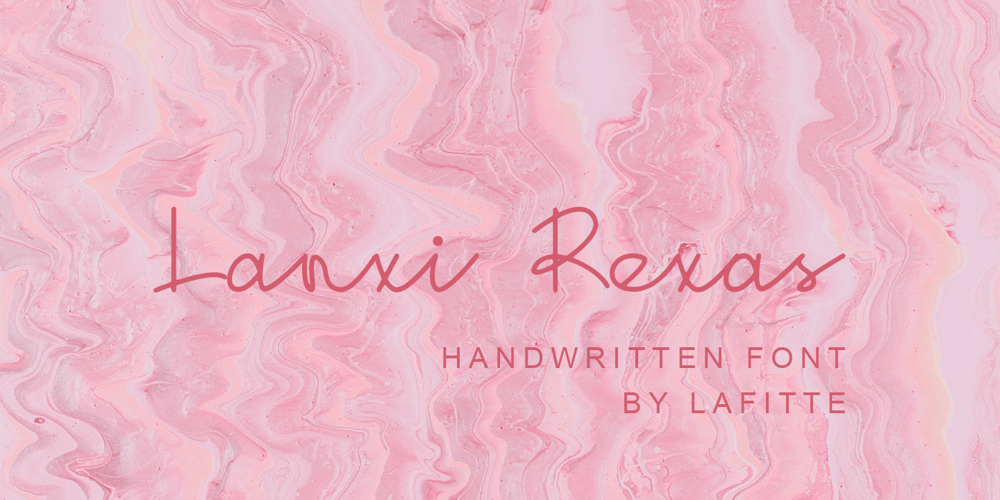
Lanxi Rexas Font Family was designed by Afif Hidayat Alhabsi and published by Lafitte 58. Lanxi Rexas contains 1 styles and family package options. Lanxi Rexas is a modern and dainty handwritten font. Its natural and unique style makes it incredibly fitting to a large pool of designs.No matter the topic, this font will be an incredibly asset to your fonts’ library, as it has the potential to elevate any creation.